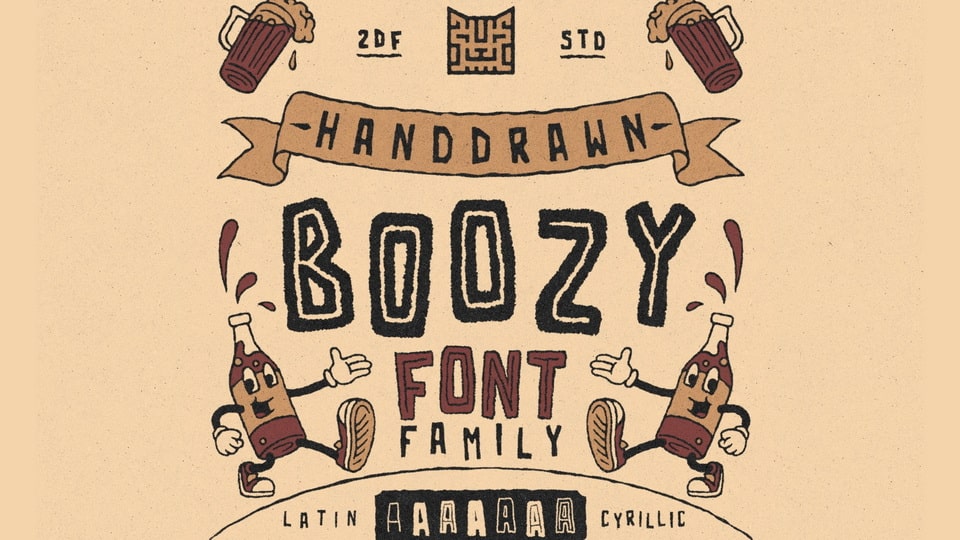
Download Boozy font, a vintage hand drawn typeface with Latin and Cyrillic alphabets. Boozy is suitable for any graphic designs such as branding materials, t-shirts, print, business cards, logos, posters, t-shirts .etc.